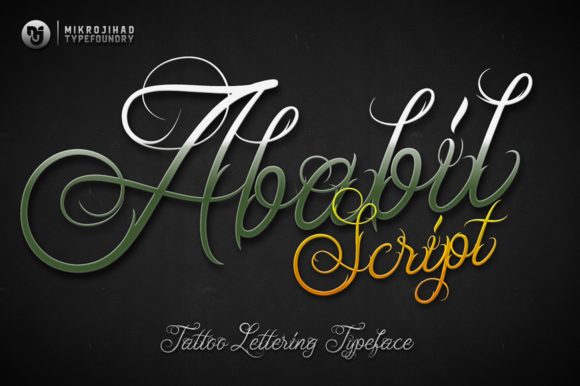
The Ababil Script Font: A Tattoo-Inspired Beauty for Your Designs
I’ll never forget the time I was working on a tattoo-inspired logo design for a client, and I just couldn’t find the right font to capture the edgy yet elegant vibe they were looking for. I scoured the internet, tried out countless fonts, but nothing seemed quite right. That was until I stumbled upon the Ababil script font. ✨ It was love at first sight! The fluid lines, the bold strokes, and the effortlessly cool attitude – it was exactly what I needed to bring my design to life.
What I Love About Ababil Script
- 💯 Unique and eye-catching: Ababil script is a true showstopper. Its tattoo-inspired design makes it perfect for bold and edgy designs.
- ✅ Versatile: This font can be used for a wide range of projects, from headings and logos to invitations and t-shirt designs.
- 🎨 Highly customizable: With OpenType features and glyphs, you can experiment with different styles and variations to make the font your own.
- 📚 Extensive language support: Ababil script supports multiple languages, making it a great choice for global brands and designers.
While Ababil script is an amazing font, it’s not without its quirks. 🤔 Here are a few things to keep in mind:
- ⚠️ Legibility at small sizes: Like many script fonts, Ababil can be a bit tricky to read at small sizes. Make sure to test it out at different sizes to ensure it works for your project.
- ⚠️ Limited suitability for body text: While Ababil is perfect for headings and titles, it may not be the best choice for body text. Its bold and decorative nature can be overwhelming for longer blocks of text.
The Story Behind Ababil Script
Ababil script was inspired by the world of tattoos and the art of self-expression. Its creator, a passionate designer and typographer, wanted to capture the essence of tattoo culture and translate it into a beautiful, functional font. The result is a typeface that’s both bold and elegant, perfect for designers who want to add a touch of edginess to their work.
Q: What is the best way to use Ababil script in my designs?
A: Ababil script is perfect for headings, titles, and short blocks of text. Use it to add a touch of personality to your designs, but be mindful of legibility at small sizes.
Q: Is Ababil script suitable for body text?
A: While Ababil script is a beautiful font, it’s not ideal for body text. Its bold and decorative nature can be overwhelming for longer blocks of text.
Q: Can I modify Ababil script to fit my design needs?
A: While it’s best to use Ababil script as is, you can experiment with different styles and variations using OpenType features and glyphs. However, make sure to check the font’s licensing terms and conditions before making any modifications.